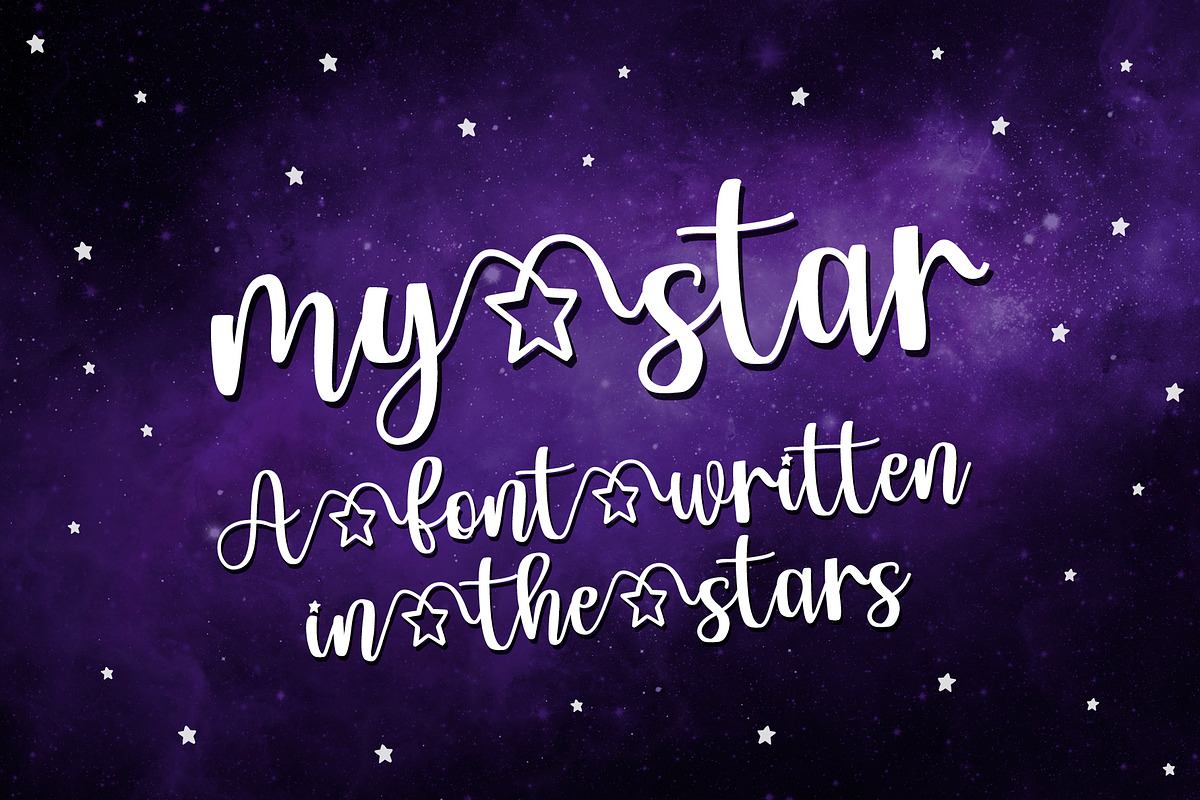
My Star Font Free Download is a whimsical and dreamy handwritten typeface that feels like it’s been written in the stars. With its gentle curves, soft strokes, and celestial charm, this font is perfect for love letters, magical quotes, dreamy branding, astrology-themed designs, and starry-night event invitations.
It radiates warmth and wonder, making every word feel special and heartfelt. Whether you're designing for a romantic brand or crafting cosmic-inspired content, My Star delivers elegance with a sprinkle of stardust. My Star Font Free Download allows you to explore its heavenly style in personal projects before purchasing a commercial license.
Shine bright in your designs with My Star — the handwritten font that brings a touch of the cosmos to every creation.